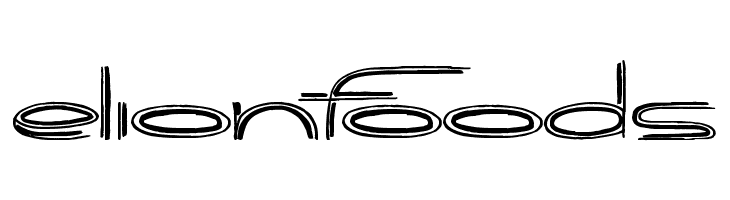
( Fonts by Andy Krahling - Sunwalk )
A whimsical, hand-drawn font with elongated, narrow characters and uneven strokes.
A futuristic and sleek font with elongated, curved letterforms.
A dynamic and artistic script font with elongated strokes and bold numerals.
( Fonts by Sora Sagano - www.dotcolon.net )
A modern, geometric font with elongated, angular characters and a futuristic style.
( Fonts by Des Gomez )
A playful and whimsical font with rounded, elongated characters and quirky symbols.
( Fonts by Des Gomez )
A playful, hand-drawn font with elongated, irregular strokes and a whimsical style.
( Fonts by Vanessa Bays - bythebutterfly.com )
A whimsical, handwritten font with narrow, elongated letterforms.